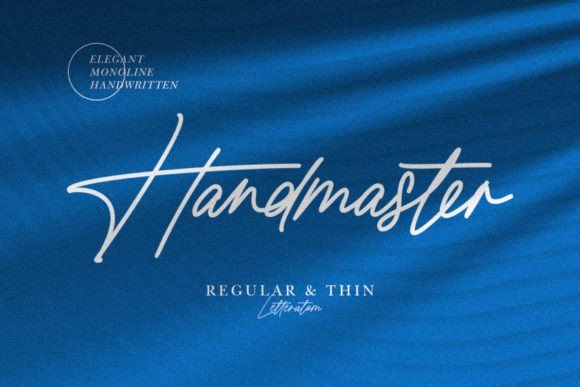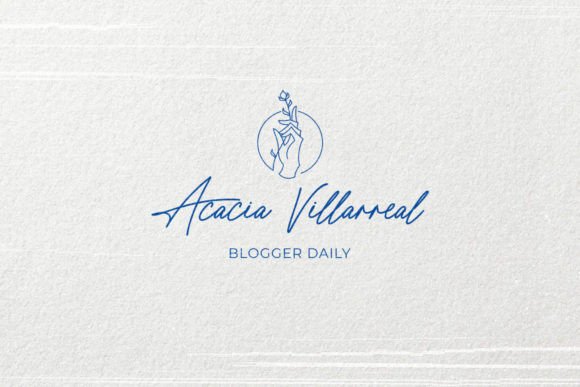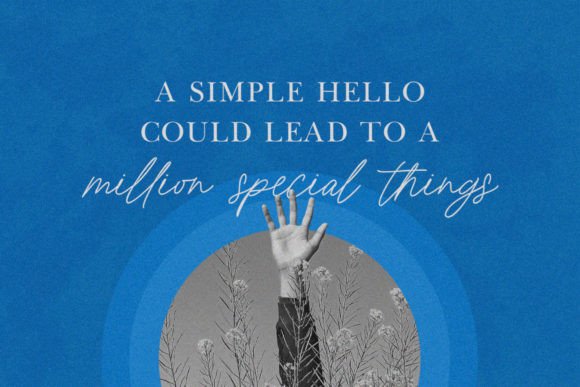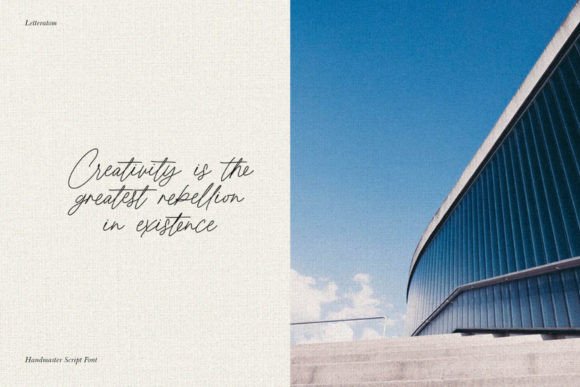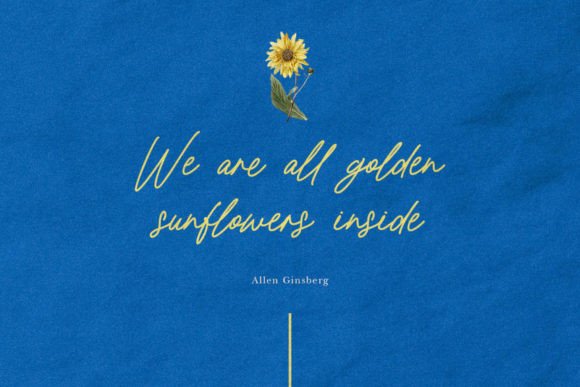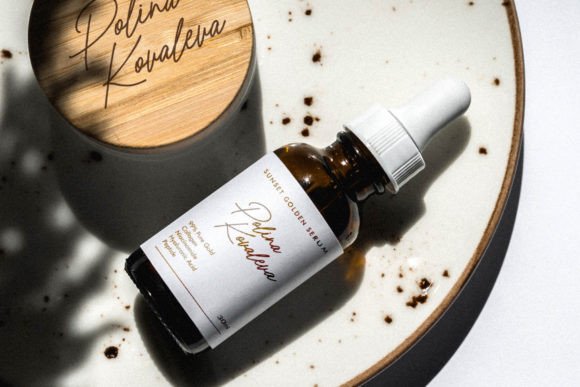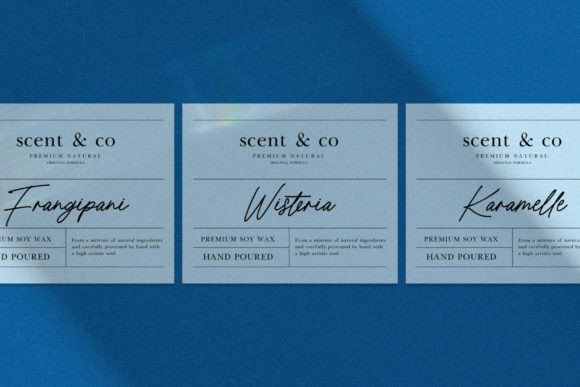
The Perfect Brush Stroke: Discovering the Handmaster Font
Imagine you’re brainstorming ideas for a new branding campaign, and suddenly, a spark of creativity hits you – the perfect, elegant handwriting font that elevates your design to the next level. This is where the Handmaster Font comes in – a stunning monoline handwriting font that’s designed to make your projects stand out.
With two options to choose from, regular and thin, the Handmaster Font is the perfect addition to any design project. Whether you’re creating packaging, greeting cards, or website headlines, this font adds a touch of class and sophistication that’s hard to find in other fonts. Its natural, unique look makes it a valuable asset for designers looking to create truly exceptional work.
Handmaster Font Key Features
- Font Family: Handmaster is a unique, handwritten font with a personal touch, ideal for creative projects and designs.
- Unique Characteristics: Handmaster Font features unique letterforms, swashes, and flourishes that add a touch of personality to your designs.
Handmaster Font Review
First off, I have to say that the Handmaster Font has some really great qualities. ✨ The font’s script-like feel is perfect for adding a touch of elegance to any project. It’s particularly well-suited for invitations, certificates, or any other type of document where a sense of formality is desired.
One of the standout features of Handmaster Font is its versatility. ✨ It comes in a range of weights, from light to bold, which makes it easy to use in a variety of contexts. Whether you’re looking to add a delicate touch or a bold statement, Handmaster Font has got you covered.
- ⚠️ The font may be a bit too ornate for some projects, which could make it difficult to read in certain situations.
- ⚠️ The font’s script-like feel can make it challenging to use in large blocks of text, as it can be difficult to follow.
- ⚠️ Some users may find the font’s weight range to be limited, particularly if they’re looking for a more extreme weight option.
Overall, I think the Handmaster Font is a solid choice for any designer looking to add a touch of elegance to their project. While it may have some limitations, its versatility and range of weights make it a great option for a wide range of applications.
Tips for Getting the Most Out of Handmaster Font
To get the most out of Handmaster Font, consider the following tips:
- Use it for creative and artistic projects, such as invitations, posters, and social media graphics.
- Pair it with other fonts to create a unique and eye-catching visual effect.
- Experiment with different font sizes, colors, and styles to add depth and interest to your design.
Handmaster Font is commonly used for:
- Invitations